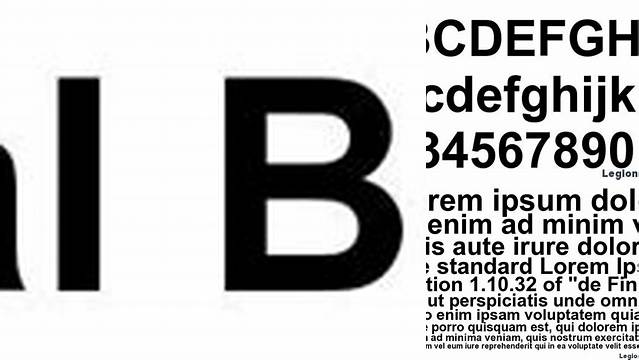
LegionFonts: Arial Bold Font Guide & Variations
Hey guys! Let's dive headfirst into the awesome world of LegionFonts, specifically focusing on the ever-popular Arial Bold font. We'll explore everything from its origins to its various uses and even some cool variations you might not have known about. Get ready to become an Arial Bold aficionado!
Decoding LegionFonts and the Power of Arial Bold
So, what exactly is LegionFonts? Well, think of it as your go-to resource for a massive library of fonts, including the ubiquitous Arial Bold. But, beyond just offering the font, LegionFonts provides insights, variations, and guidance on how to best use this typeface. And why Arial Bold, you ask? Because it's a workhorse! It's clear, legible, and packs a visual punch. The bold weight takes it up a notch, making it perfect for headlines, emphasis, and grabbing attention. It's a classic for a reason, and understanding its nuances is key. This article serves as your comprehensive guide, ensuring you become a master of Arial Bold, whether you're a seasoned designer or just starting out. We'll break down everything, from its historical context to practical applications in various design projects. Get ready to unlock the full potential of this versatile font.
Arial Bold is a version of Arial that is part of the sans-serif typeface that was developed by Monotype. Arial was created as a direct competitor to the Helvetica typeface. The bold version of Arial is designed for emphasis and to grab attention due to its heavier strokes. Its wide availability across operating systems and software makes it a highly accessible font choice for any user. LegionFonts and other font platforms serve as gateways to this and other such fonts. It’s important to have an understanding of the differences, particularly in design contexts. This familiarity ensures that the correct font is chosen, leading to optimal readability and visual impact in any project.
Delving Deeper: The History and Origins
Arial, in its standard and bold forms, has an interesting history. It was designed to mimic Helvetica, created by Swiss typeface designer Max Miedinger. Monotype wanted to create a font that could compete with Helvetica, which was at the time a very popular choice. Arial Bold was released as a component of the larger Arial typeface, providing the emphasis needed for headlines and other call-out elements. It was designed to be a clean, readable font, and the bold version enhances this by increasing the visual weight of the typeface. This typeface, and its bold variant, gained huge prominence when it was bundled with Microsoft Windows in the 1990s, making it widely accessible to the general public. The widespread use of Arial Bold led to it becoming a standard choice for many documents and online content. It became the go-to font for many due to its broad availability and its simple design. The history behind this font underscores its widespread acceptance and its use in many different types of media.
Arial Bold's Role in the LegionFonts Universe: Understanding Its Use Cases
So, how can you actually use Arial Bold? The possibilities are endless, but let's look at some key applications. It's a fantastic choice for headings and subheadings in documents, websites, and presentations. Its boldness ensures that these elements stand out and draw the reader's eye. It's also ideal for highlighting key information within paragraphs; use it sparingly to emphasize important points, without overwhelming the reader. In graphic design, Arial Bold works well for logos, especially those that require a clean, modern look. It's also a solid choice for any design where you want to ensure readability and impact. Its versatility means that it can also be applied to user interfaces, from buttons to labels, where a clear and easily readable typeface is crucial. Arial Bold is a key element in the LegionFonts ecosystem. You will notice this is a staple in many designs that require readability and impact.
Mastering Arial Bold for Headlines and Emphasis
Arial Bold's inherent strength makes it an excellent choice for headlines. Its thicker strokes ensure that the headline stands out and catches the eye. This is crucial in print and web design. Think about websites with several competing headlines. The boldness will make certain headlines more eye-catching. Arial Bold is also perfect for creating emphasis in documents. Use it for key points. Remember to use it sparingly. Overuse can make the text seem cluttered, and diminish its impact. It is a practical tool for designers and writers seeking to create visual impact and clearly communicate their message.
Exploring LegionFonts Font Families and Arial Bold Variations
Okay, let's broaden our horizons beyond just the plain Arial Bold. LegionFonts (and other font resources) often offer various weights and styles within the Arial family. You might find Arial Black, which is even bolder, perfect for truly eye-catching statements. Arial Narrow Bold can be great for headlines in confined spaces. It’s more condensed. There's also the Arial Italic, which gives a more elegant and sometimes formal feel. Understanding these variations allows you to fine-tune your design choices, selecting the perfect Arial style for the job. Exploring these different styles within the Arial family opens up new possibilities for your design work, allowing you to create more impactful and versatile designs. When choosing a variation, consider the context, the overall design, and the message you want to convey. You can ensure the chosen font complements your project.
Arial Black vs. Arial Bold: Choosing the Right Weight
Here’s a common question: when to use Arial Black versus Arial Bold? Arial Black is even bolder than Arial Bold, offering more visual weight and impact. It's a fantastic choice when you need maximum attention. Think of a massive headline, a bold title, or a call-to-action button that must be clicked. However, since it is so bold, it is not ideal for body text, as it may strain the reader's eyes. Arial Bold, on the other hand, strikes a better balance. It's readable, attention-grabbing, and less overwhelming. Consider it a great choice for subheadings, or for emphasizing specific words or phrases. The choice depends on your desired effect. If you want impact, choose Arial Black. If you want readability, choose Arial Bold. Sometimes a combination of both will be what you need.
Leveraging LegionFonts for Design Projects: Arial Bold in Action
Let's get practical! How can you use Arial Bold in your actual design projects? Well, imagine you're creating a website. You could use Arial Bold for the main navigation labels, ensuring they're clear and easy to find. In a brochure, use Arial Bold for headlines and subheadings to guide the reader through the content. In a presentation, use Arial Bold for slide titles and key bullet points. These are just a few examples. The versatility of Arial Bold makes it a valuable asset in various design applications. Understanding the principles of design allows you to use it effectively. Whether you are designing marketing materials, creating web content, or developing user interfaces, Arial Bold can enhance readability and visual impact.
Arial Bold in Web Design: A Practical Guide
Arial Bold is an excellent choice for web design. Its legibility makes it ideal for headlines, navigation menus, and calls-to-action. Use it for the main navigation labels, ensuring they're easy to see and click. Use it for the titles of the blog posts. This will draw the readers’ eye. When designing buttons, Arial Bold ensures the text is easy to read, encouraging user interaction. Be careful not to overuse it. Too much Arial Bold can make your website feel cluttered. Using it effectively requires a balance. Make sure the text color has enough contrast with the background color. This will ensure that the text is still visible. This will enhance the overall user experience.
Recap: Key Takeaways from the Arial Bold Guide
Let's review the key takeaways. Arial Bold is a versatile and widely accessible font. It's great for headlines and emphasis. Consider the specific needs of the project, and choose the appropriate font weight. Explore the various variations of Arial. Understand font licensing. Always make sure you have enough contrast. Keep your brand identity consistent. If you follow the guidelines, you’ll be able to use Arial Bold effectively. Arial Bold is a timeless typeface. Its impact on design can be seen through all mediums. You will be able to make great designs.